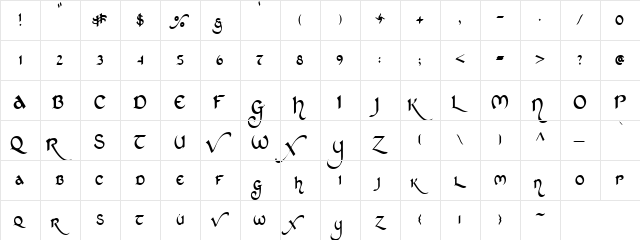
St Charles Thin Regular
Design Context for St Charles Thin Typeface
St Charles Thin is a composed and adaptable typeface that performs quietly and consistently across a wide range of design contexts. The delicate stroke weight brings airiness and refinement to layouts.